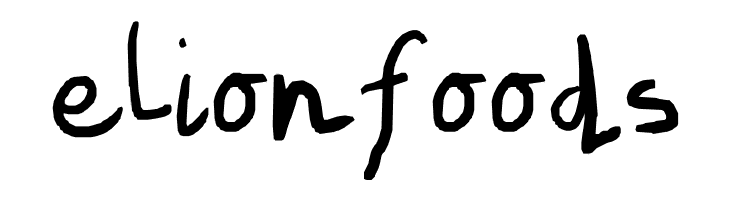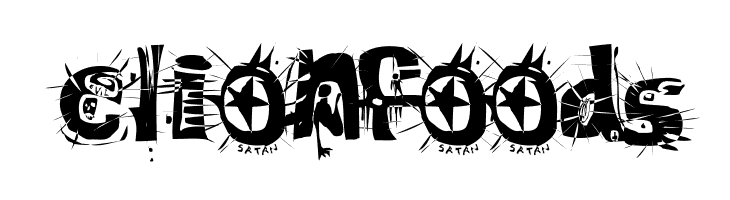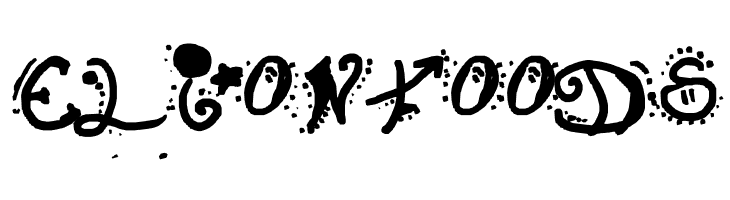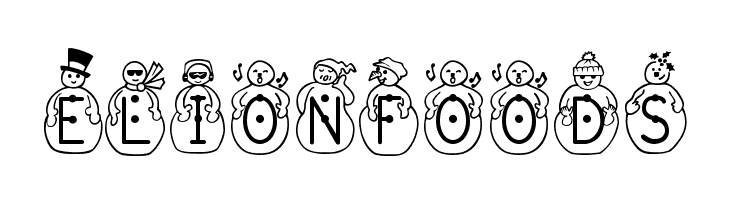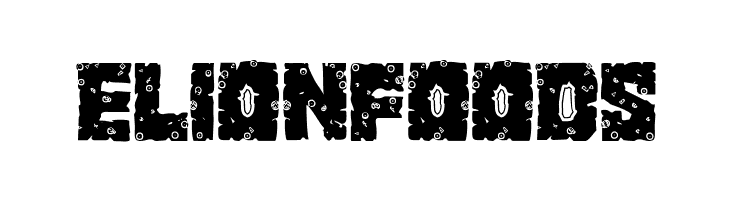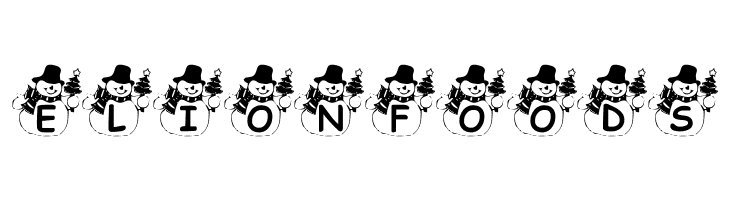
A playful, handwritten font with an informal and friendly style.
A bold, decorative font with playful embellishments and dynamic style.
A whimsical snowman-themed font with bold, clear characters.
A bold, chaotic display font with a punk rock aesthetic and distressed look.
A bold, distressed font with a rugged, riddled appearance.